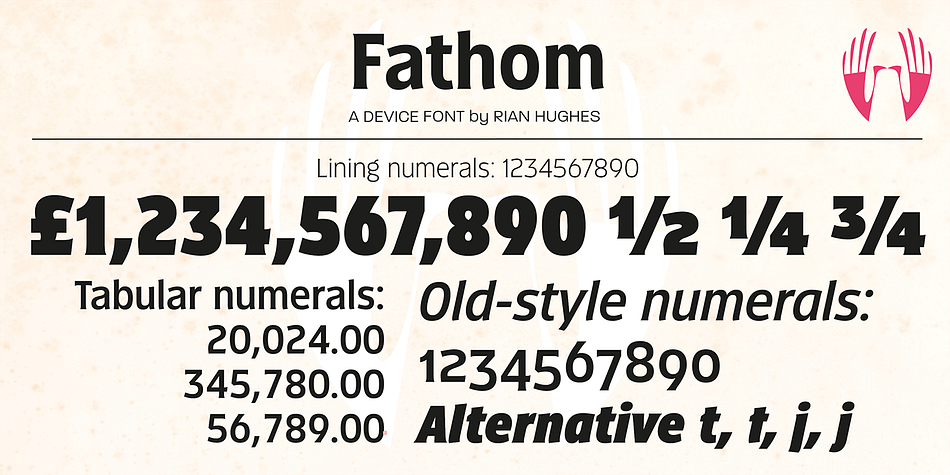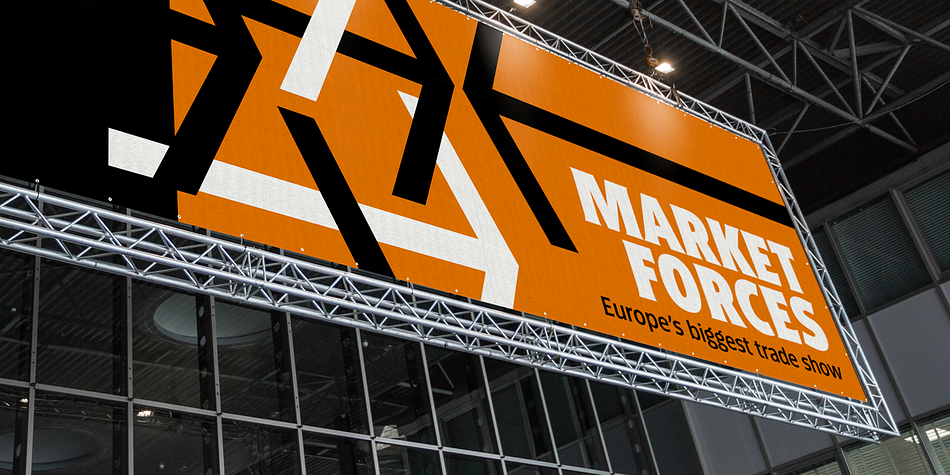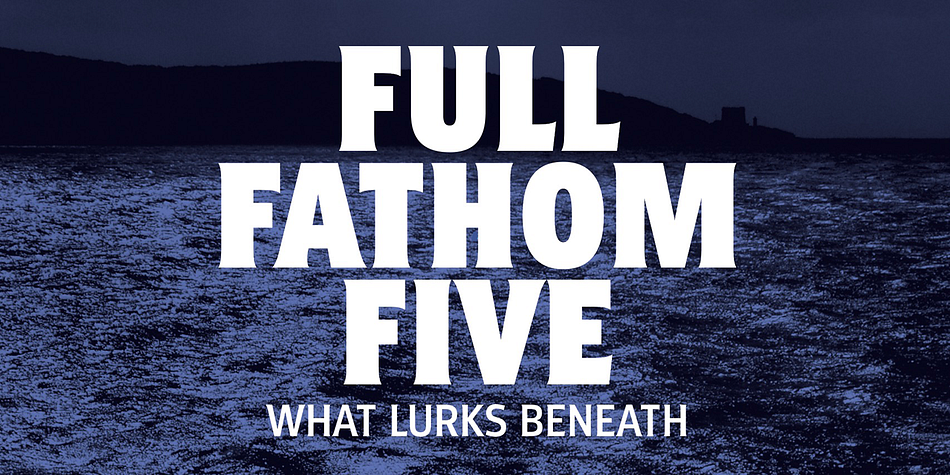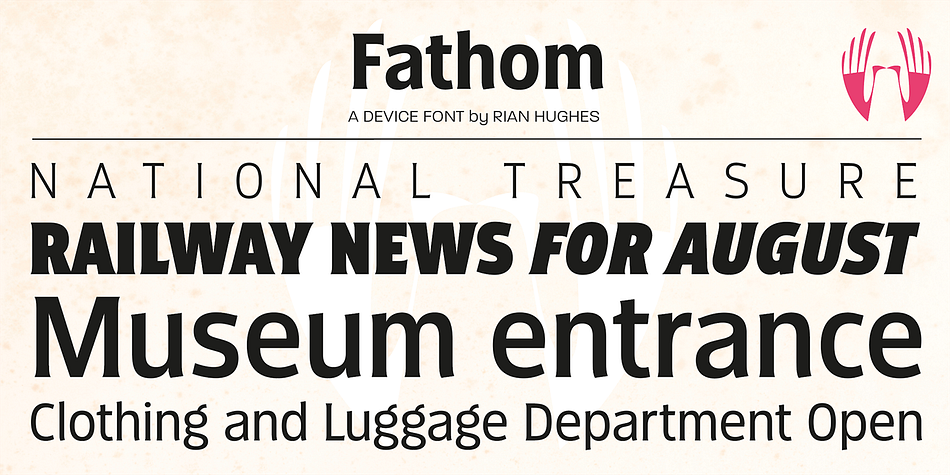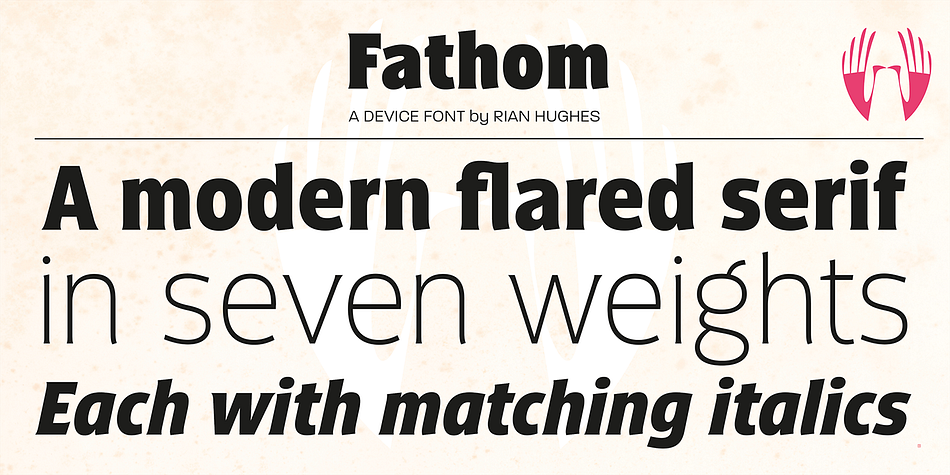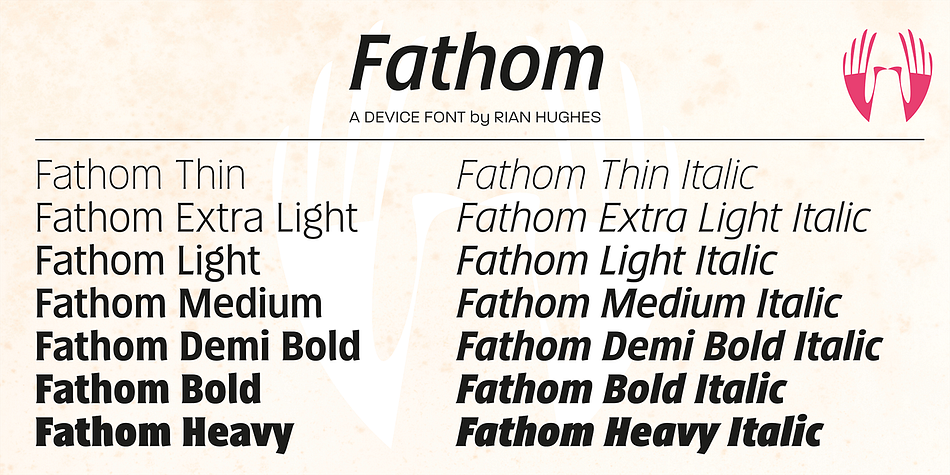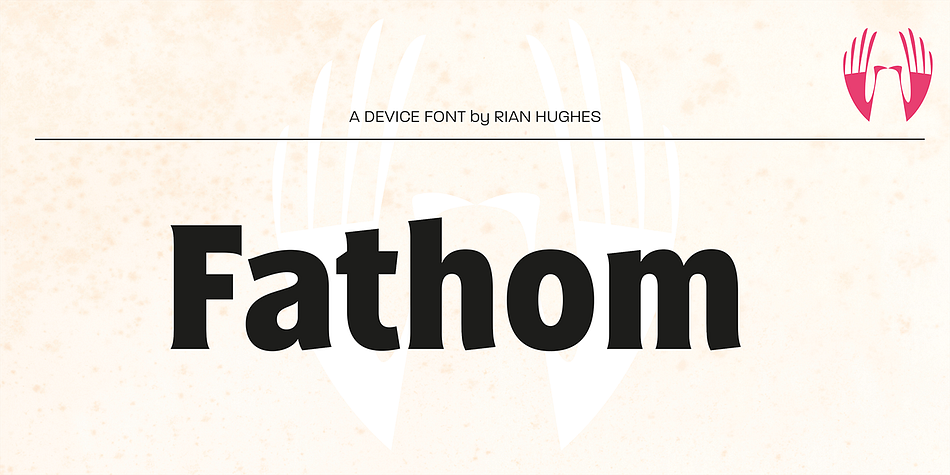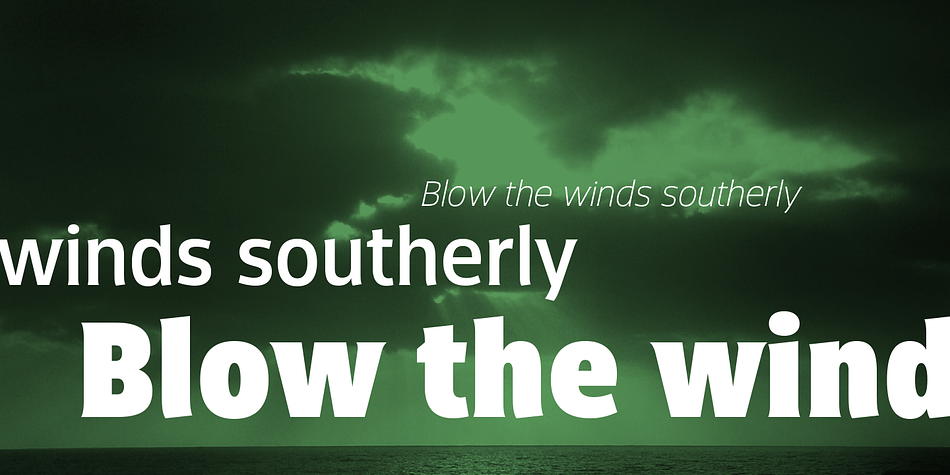
Designed by Rian Hughes, Fathom is a sans serif font family. This typeface has fourteen styles and was published by Device.
Fathom is a refined flared-serif face that is elegant and robust, modern yet suggests a legacy. The generous lower-case x-height make it worm and readable. Seven weights, plus matching italics, cover all headline and text requirements. The addition of old-style numerals and tabular numerals for charts make it a versatile family for brochures, corporations, heritage projects, packaging, book covers, reports, signage, magazines and more.